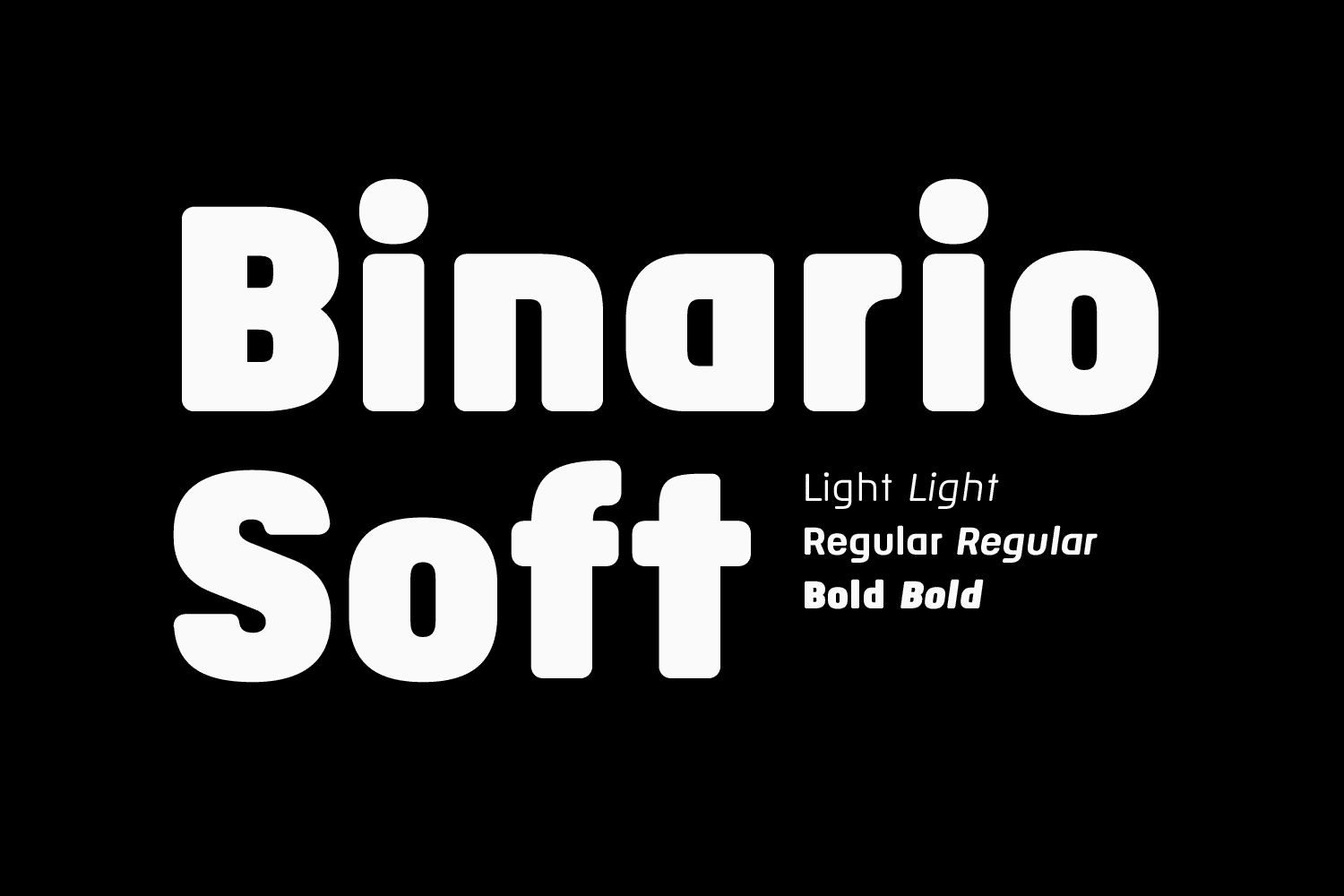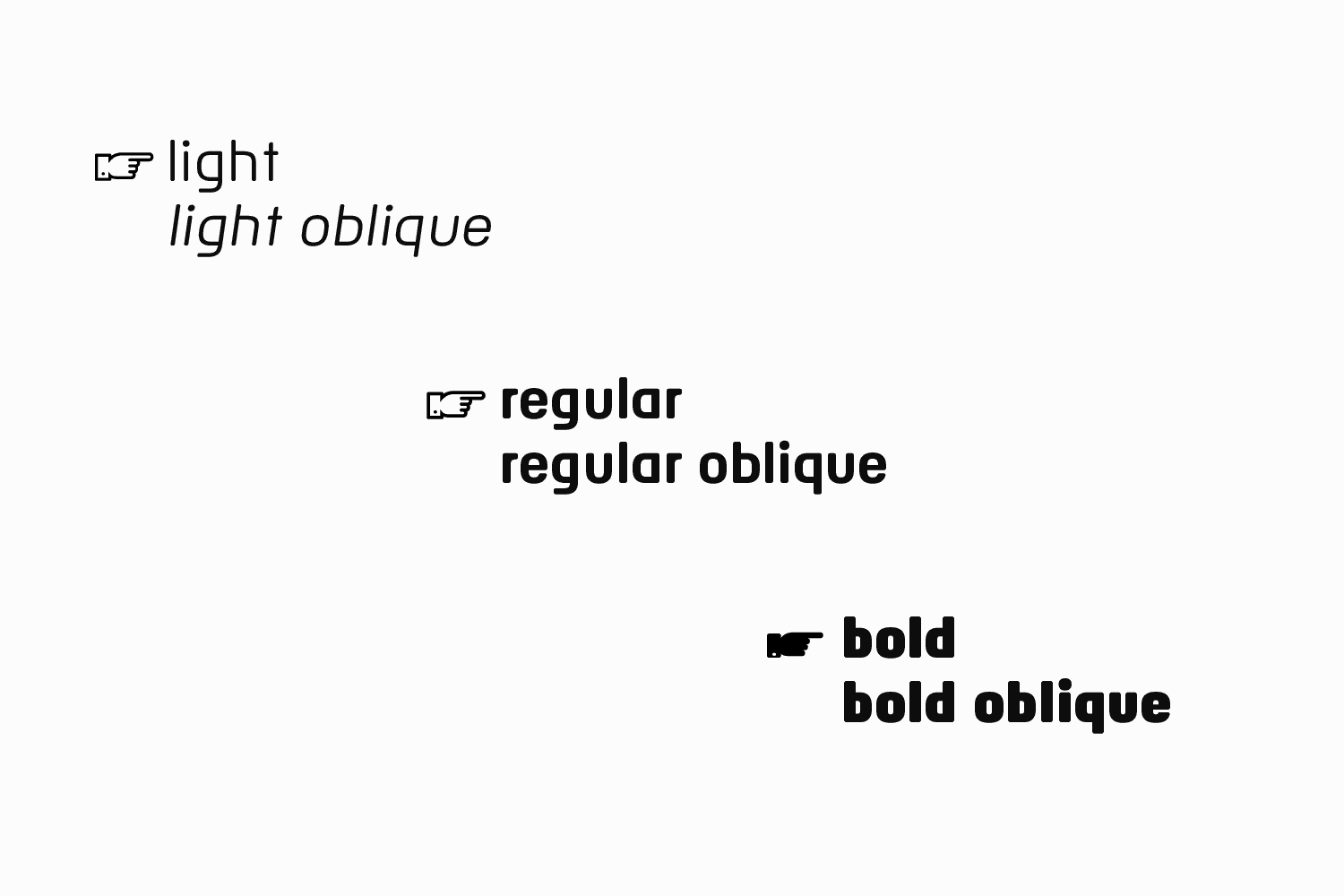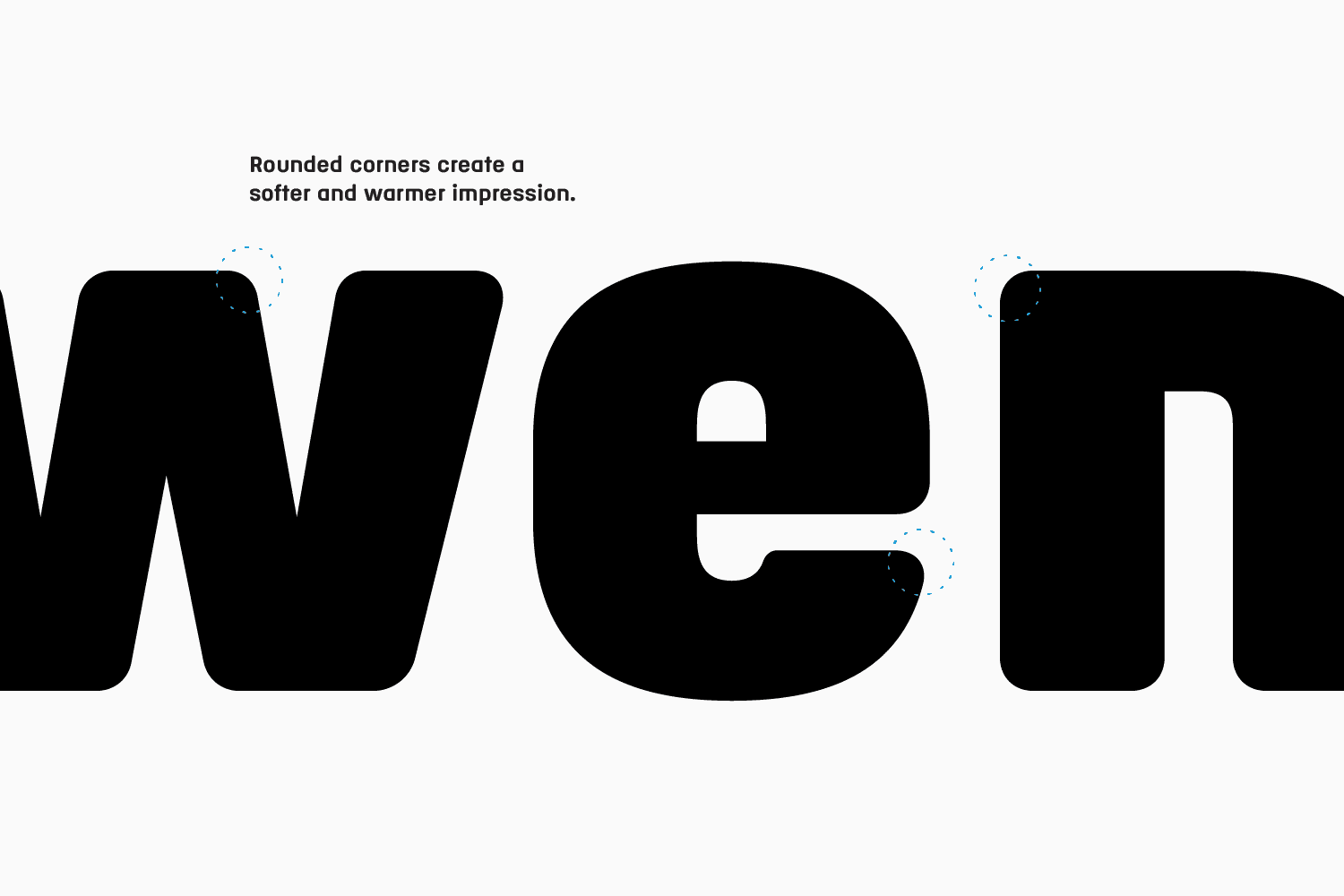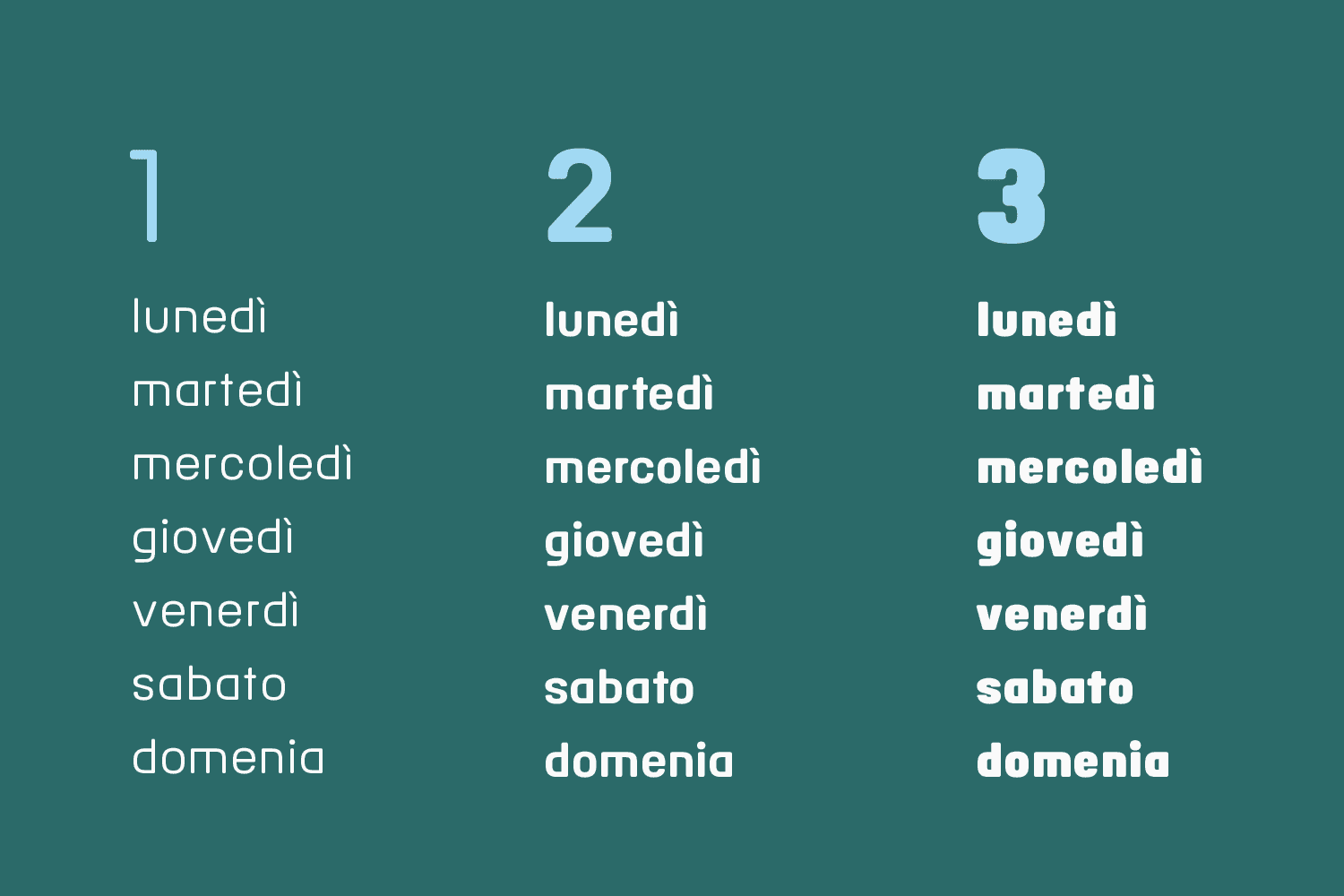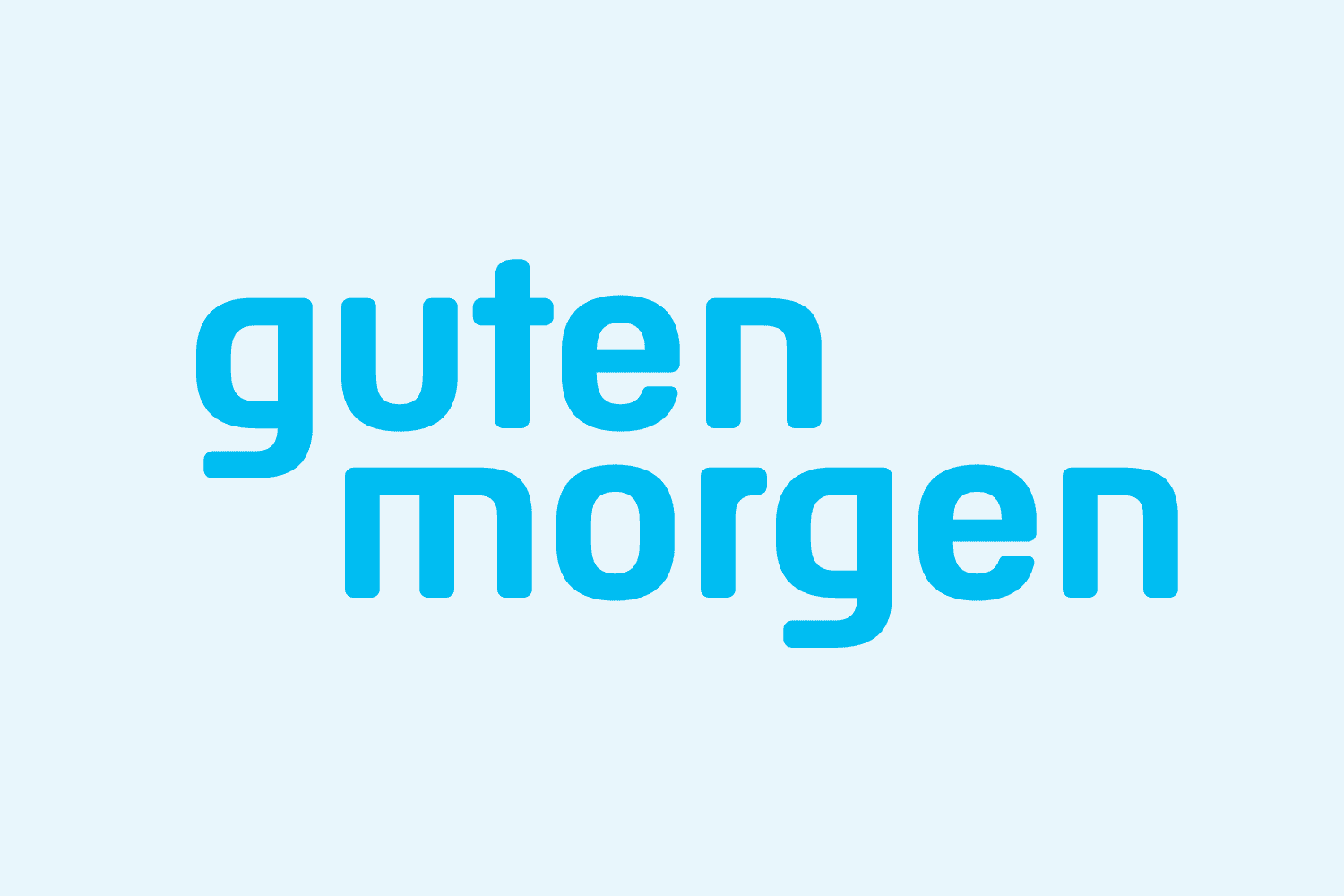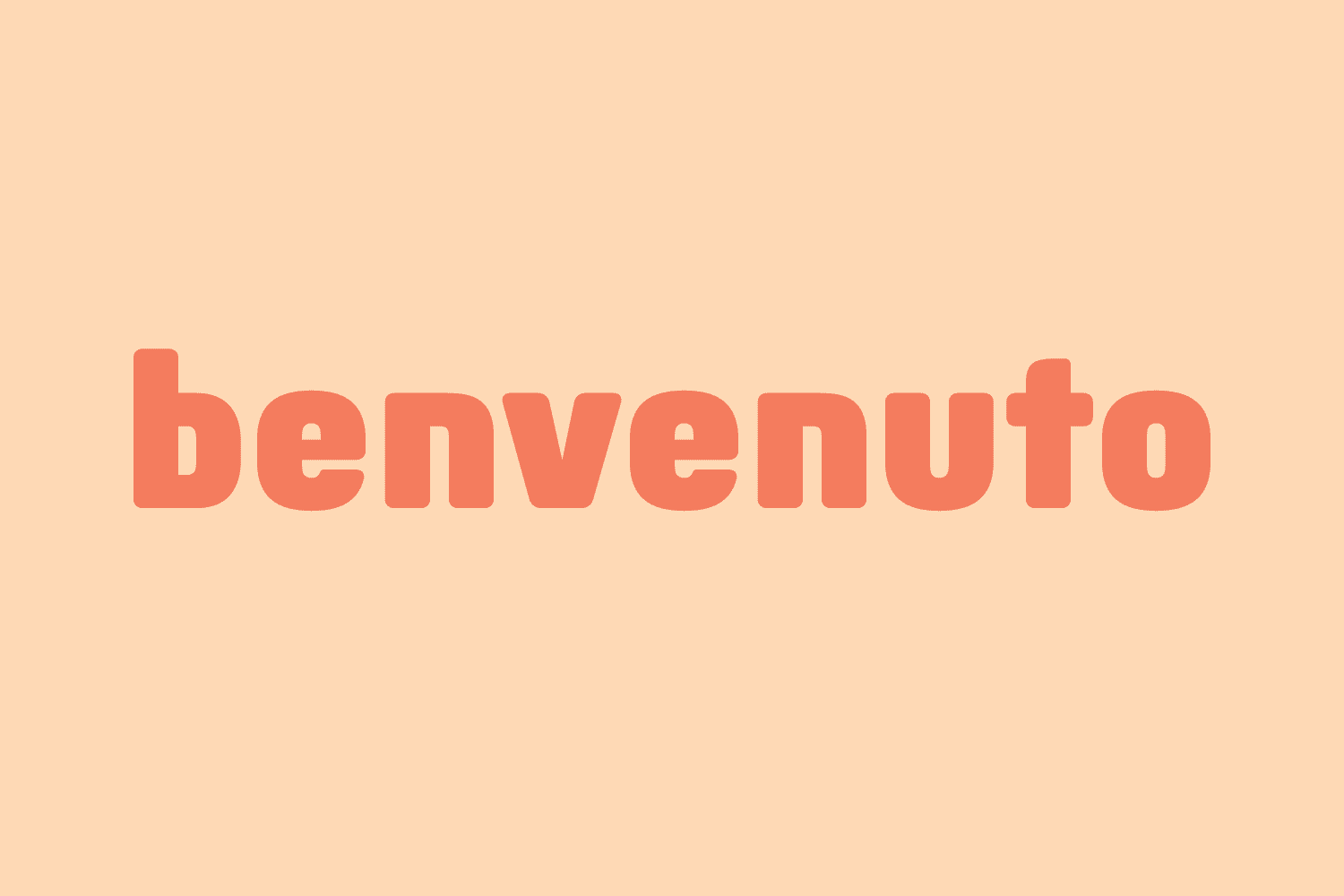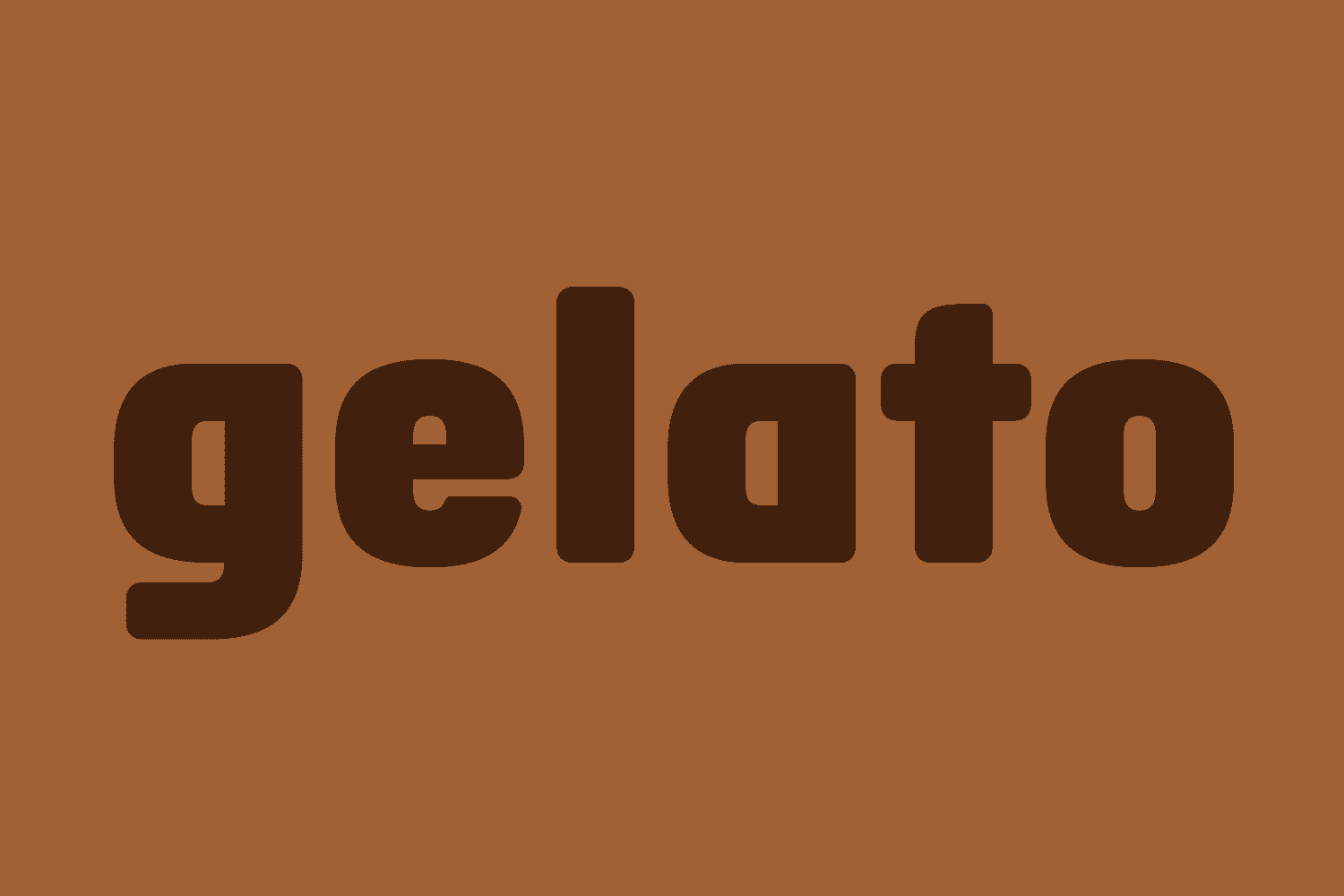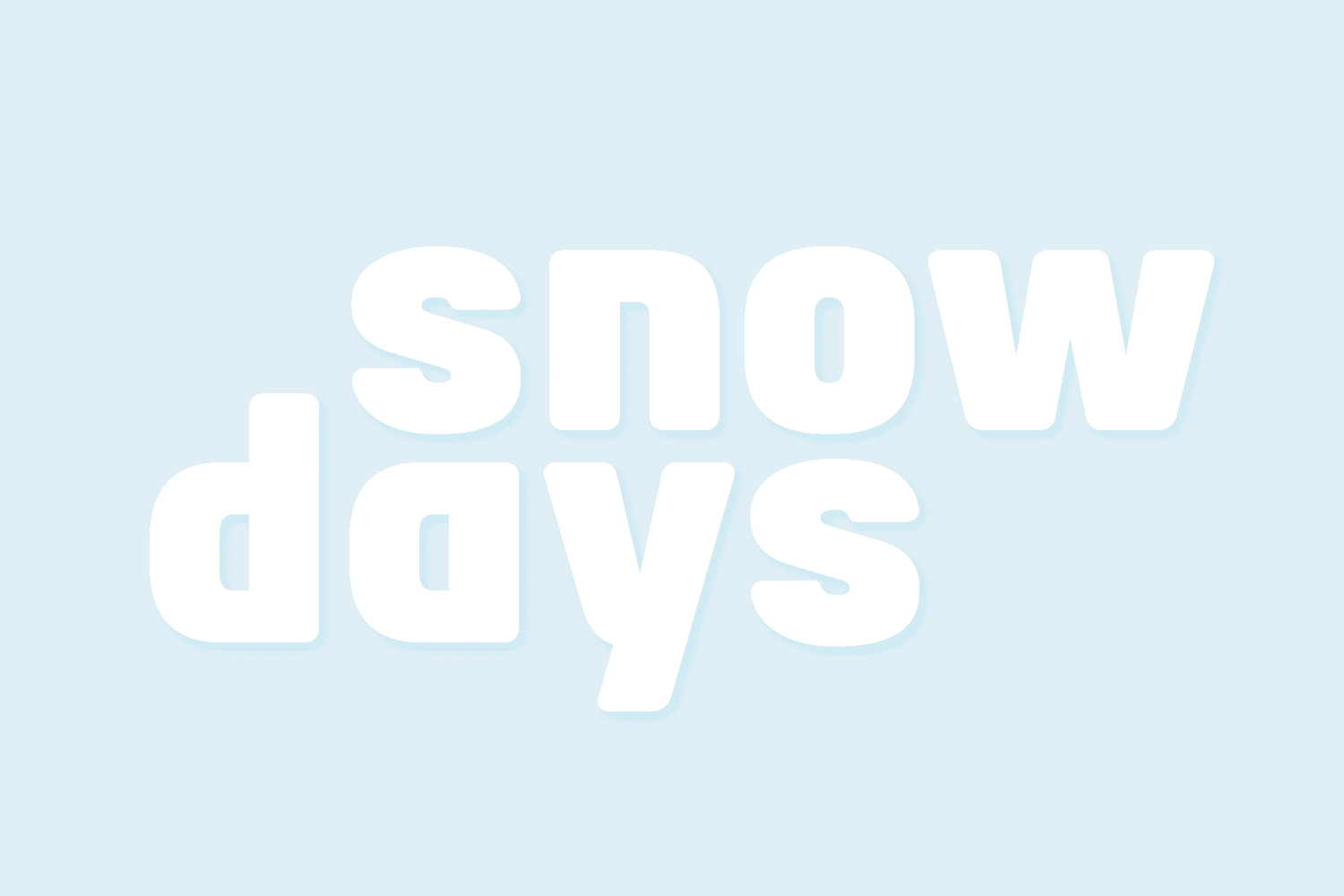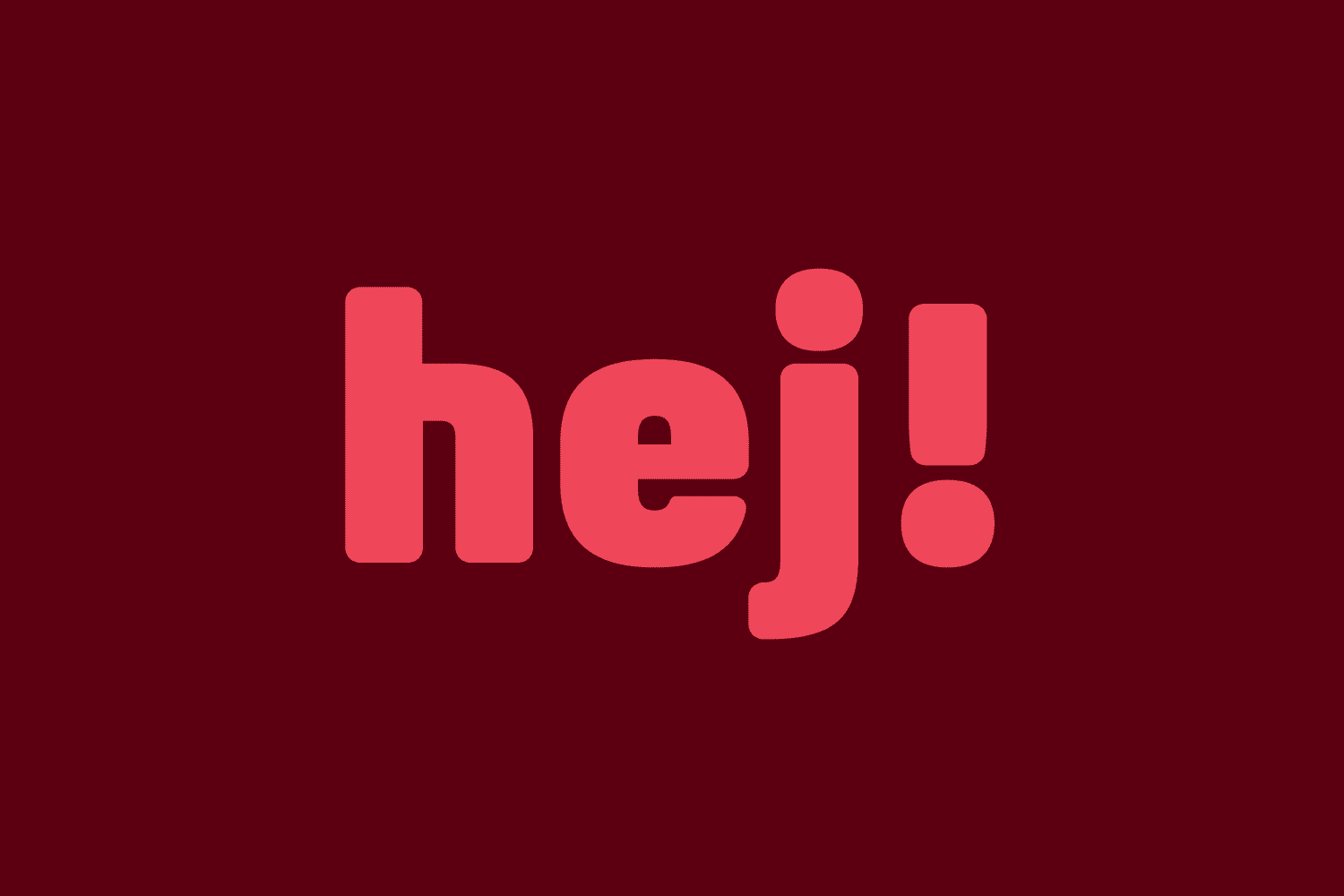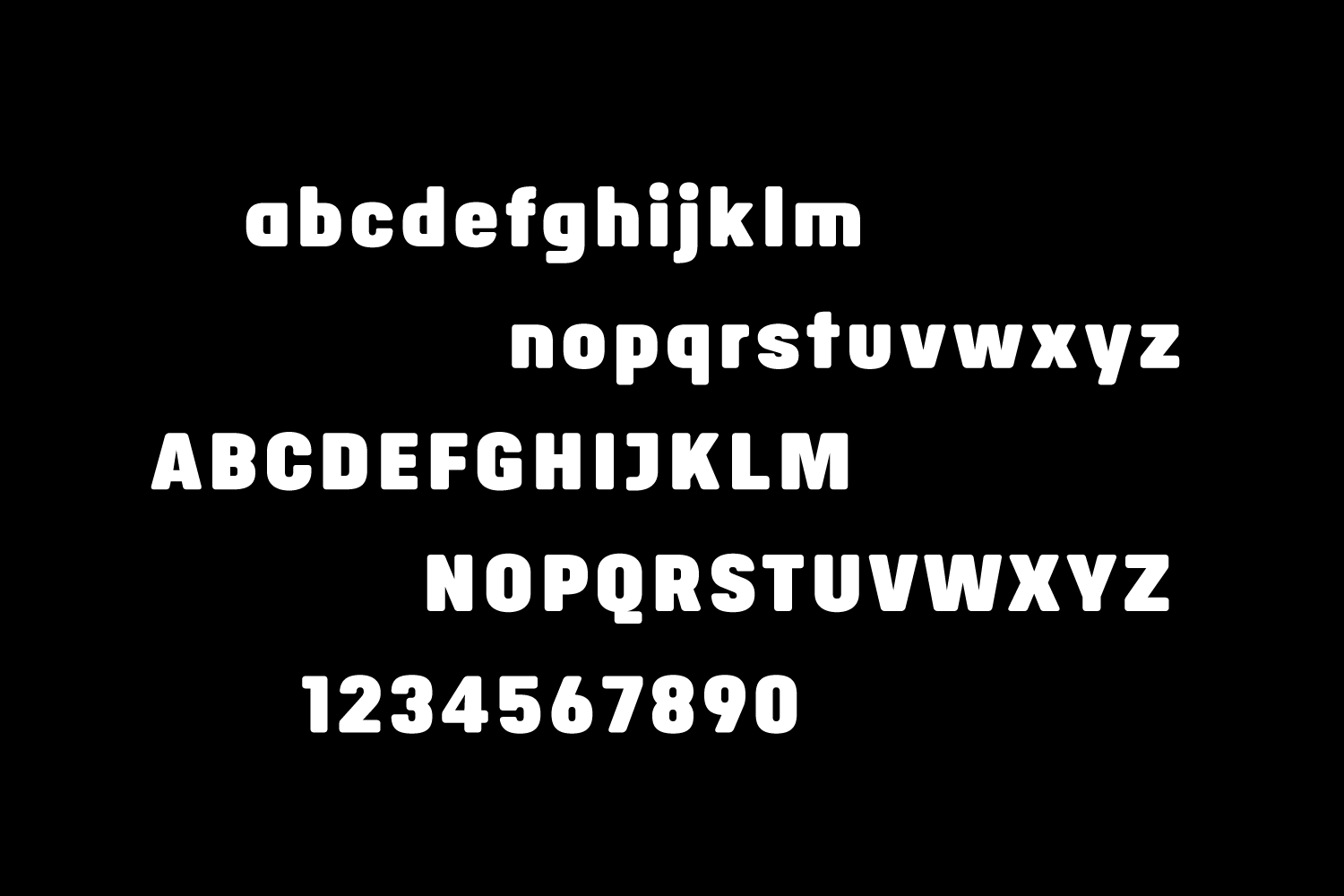
Binario Soft Family (6 fonts)
From Tarallo Design
Italian Art Deco and early 1900s advertising and shop signage were the inspiration for Binario. It also pays homage to early modernism’s optimism, modularity, and efficiency. The shape of the rounded counters are based on the curve of the classic Roman arch. The bold has a vertical emphasis and is suitable for headlines or large body text. The light is more open and provides a nice pairing to the regular or bold weights as body text or as large display text. It comes with a small set of dingbats; an arrow, a printer’s fist, a train, some flowers, and several interface icons.